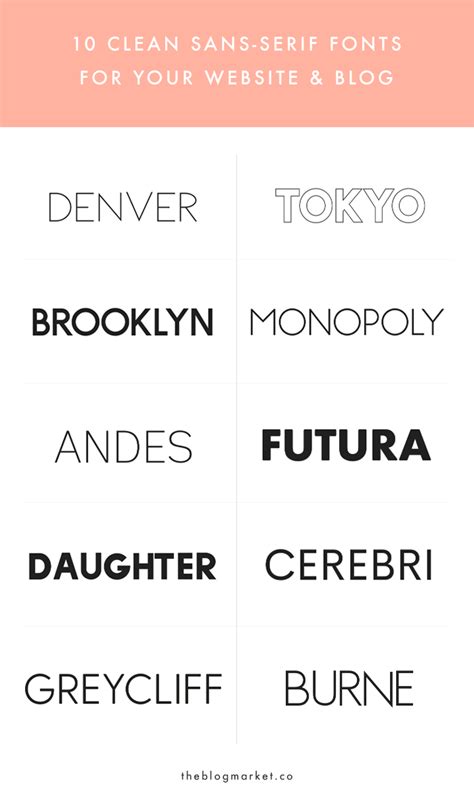
San Script Font Vs Sans Serif / Typography Basics for Developers / Google fonts now supports variable fonts.. Check out these helpful articles below Due to their minimalism, simplicity and readability, sans serif fonts are mostly used in digital formats like websites and ebooks. One of the first determinations to be made when selecting a typeface for text is serif or sans? Download the best sans serif fonts from the web that are robust, gorgeously designed and perfect for any design project. Always wanted to know the difference between serif, sans, script, and slab fonts?
Serif typefaces like times new roman are suggestive of. So a sans serif paired with an old style font will have an aged and classic feel; Sans serif fonts, on the other hand, are clean font types without any major decoration, like the arial font. It is elegant and sophisticated, but can be hard to read. Use them to add modern sophistication now you know the difference between serif and sans serif fonts.
Understanding the difference between these two categories will help you start narrowing down which one is the serif font is more ornamental and has serifs extending from the ends while the sans serif font on the left has clean and very precise ends. The brush script mt font was designed to mimic handwriting. Browse by alphabetical listing, by style, by author or by popularity. Microsoft sans serif font is a very legible user interface (ui) font. It is elegant and sophisticated, but can be hard to read. One of the first determinations to be made when selecting a typeface for text is serif or sans? Son muchos los mitos que rodean a estas dos tipos principales: Serif typefaces like times new roman are suggestive of.
Google fonts now supports variable fonts. Always wanted to know the difference between serif, sans, script, and slab fonts? Newspaper headlines, such as the examiner san francisco above, often use serif typefaces for headlines. It was designed to be metrically compatible with the ms sans bitmap font that shipped in early versions of microsoft windows. The small features on the ends of strokes in some fonts are known as serifs.. Sans serif fonts, on the other hand, are clean font types without any major decoration, like the arial font. Take a couple of classic examples. Can you think of any other points of distinction that could be included in this infographic?
It was designed to be metrically compatible with the ms sans bitmap font that shipped in early versions of microsoft windows.
Designers have thousands of typefaces to choose from and step one is choosing between fonts that have serif fonts can look authoritative, professional and suggest the weight of history or experience. Newspaper headlines, such as the examiner san francisco above, often use serif typefaces for headlines. Serif typefaces like times new roman are suggestive of. What kind of message does each send? Use them to add modern sophistication now you know the difference between serif and sans serif fonts. A pairing with an ornate script may feel more formal or feminine. Serif vs sans serif fonts. Microsoft sans serif font is a very legible user interface (ui) font.
One of the first determinations to be made when selecting a typeface for text is serif or sans?
Want to learn more about fonts from our experts? One of the first determinations to be made when selecting a typeface for text is serif or sans? Some common serif typefaces are times new roman, georgia, palatino and garamond. It was designed to be metrically compatible with the ms sans bitmap font that shipped in early versions of microsoft windows. The most common examples are arial and helvetica. Great option for greeting cards and other personal notes. Can you think of any other points of distinction that could be included in this infographic? Microsoft sans serif font is a very legible user interface (ui) font. It is suitable for many types of business. The brush script mt font was designed to mimic handwriting. Son muchos los mitos que rodean a estas dos tipos principales: Due to their minimalism, simplicity and readability, sans serif fonts are mostly used in digital formats like websites and ebooks. Always wanted to know the difference between serif, sans, script, and slab fonts?